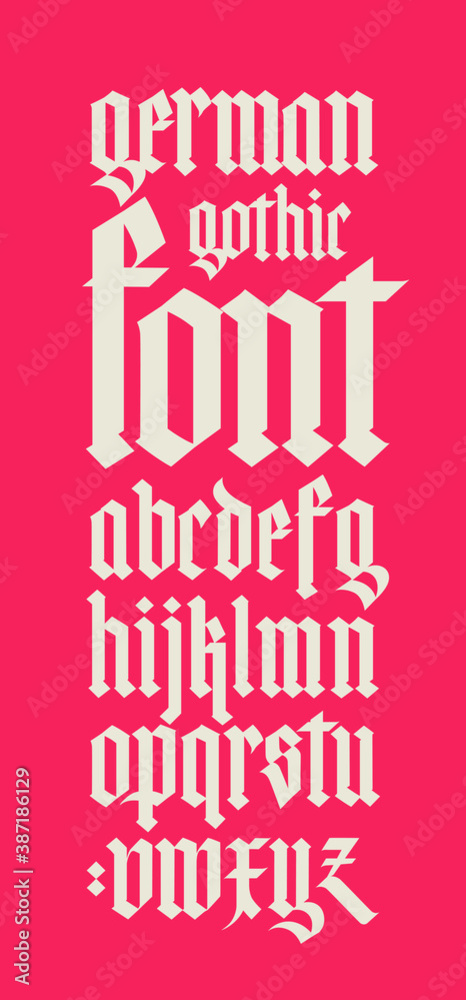
In the world of tattoo art, Germanic-inspired fonts stand out for their raw strength and ancient resonance. These bold, angular lettering styles channel the spirit of old Nordic traditions, transformed into powerful symbols for modern body ink.
Germanic tattoo fonts draw inspiration from ancient runes and inscriptions, evolving into stylized forms that honor Viking, Norse, and early Germanic heritage. These fonts often feature thick, sharp lines and symbolic depth, offering a timeless aesthetic that speaks to identity and legacy.
Today’s Germanic tattoo fonts blend tradition with modernity—featuring clean edges, bold serifs, and intricate details that suit both minimalist and elaborate tattoos. Designers use these fonts to craft unique pieces, from small emblem-style markings to full-back sagas rooted in myth and history.
Selecting the perfect Germanic tattoo font depends on personal meaning and design balance. Whether you prefer the rugged simplicity of Elder Futhark-inspired lettering or the ornate complexity of Viking runes, each style carries a narrative—making your tattoo a lasting expression of heritage and strength.
A Germanic tattoo font is more than a design—it’s a connection to powerful ancestral roots and bold artistic expression. Choose one that resonates with your spirit, and let your body become a canvas of enduring strength and history.